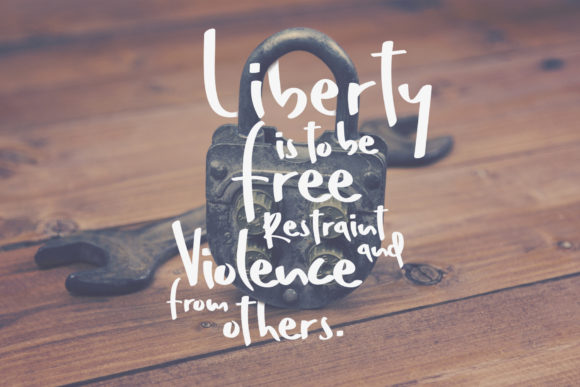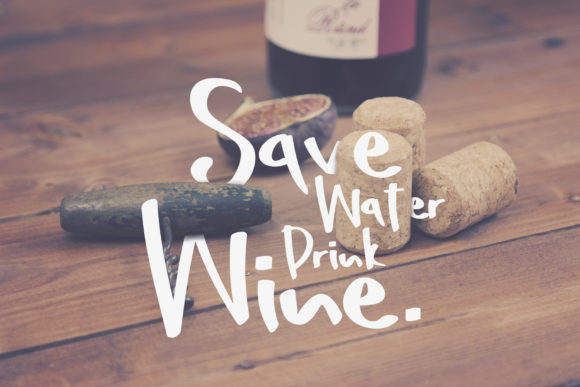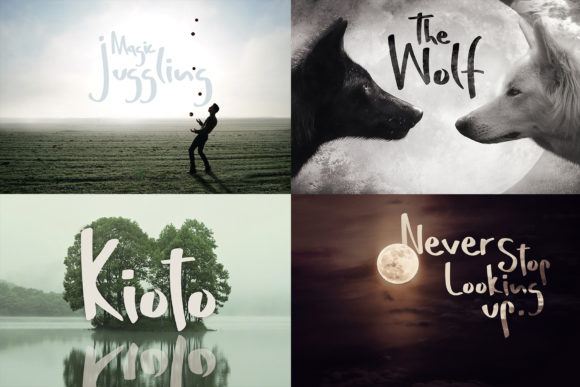
Thom Ritz Family Font
About Thom Ritz Family Font
The Thom Ritz is a handmade marker family. It includes 3 styles which are perfect to give an unique appearance to your designs.